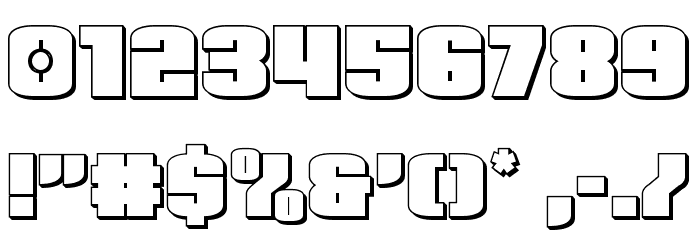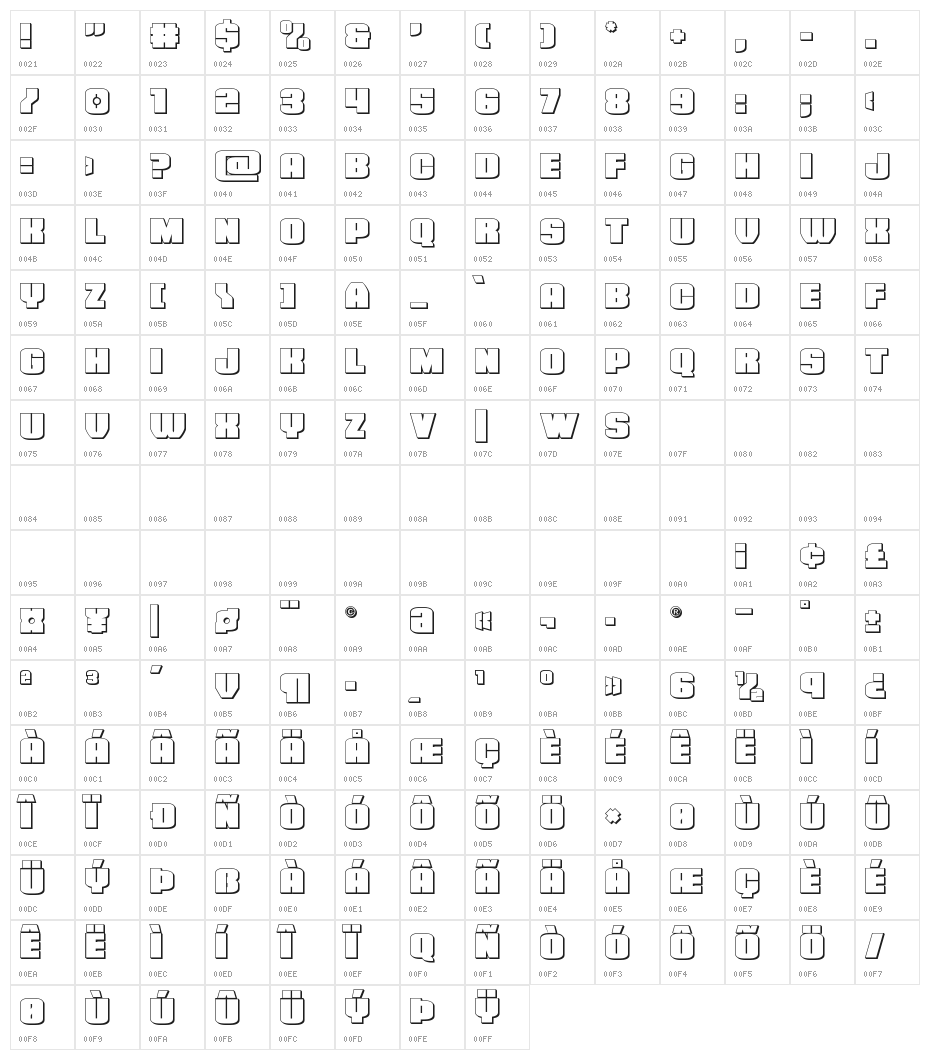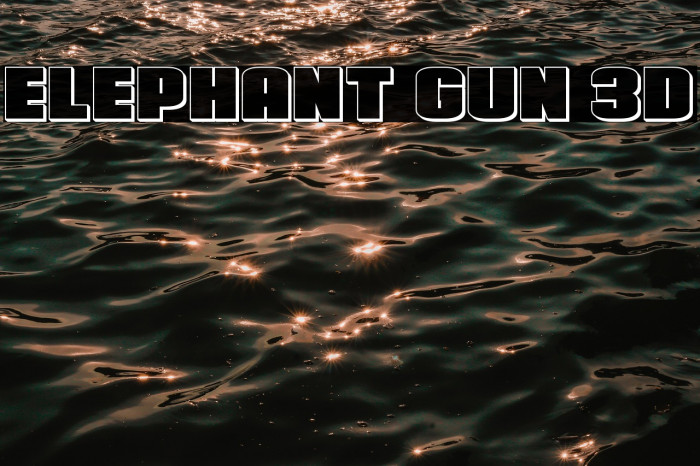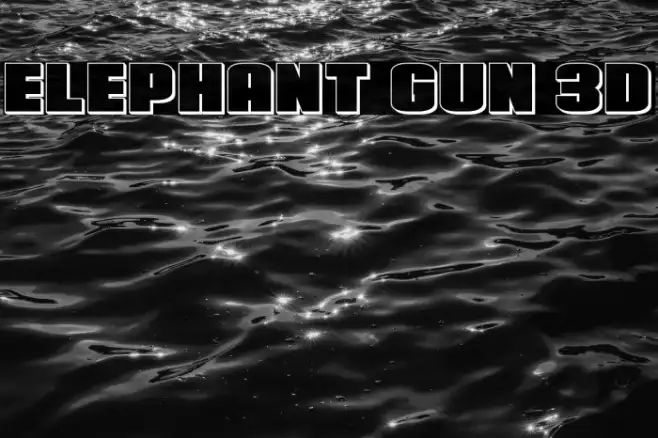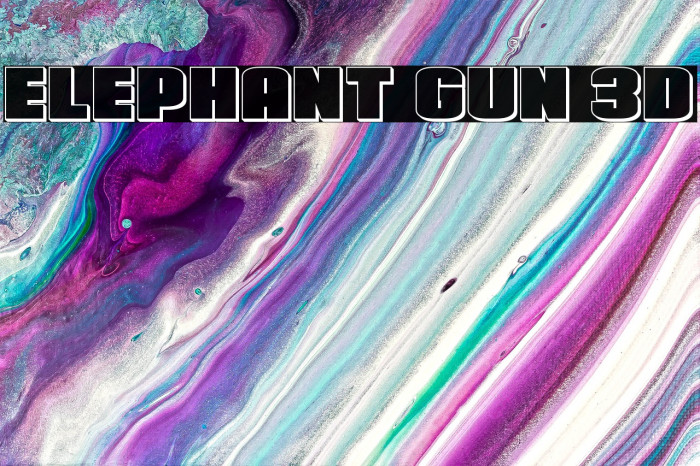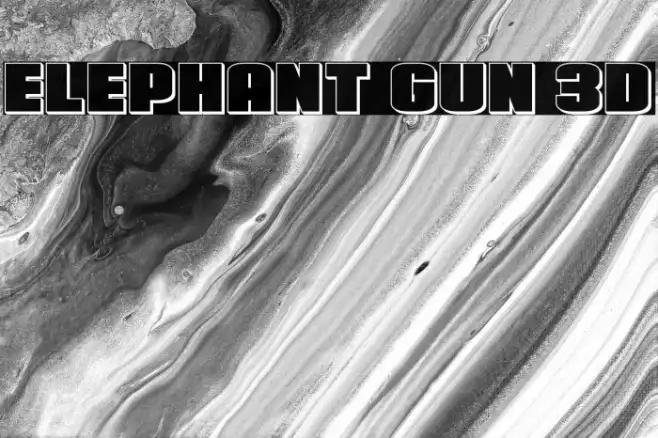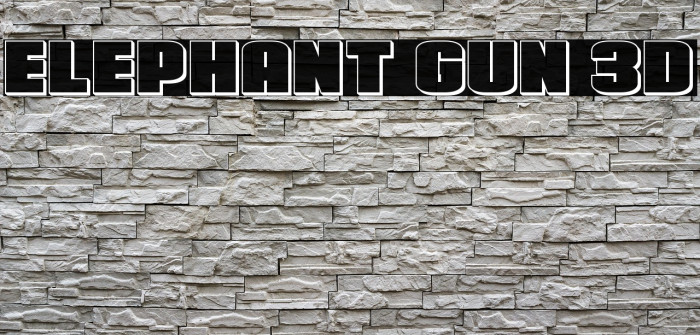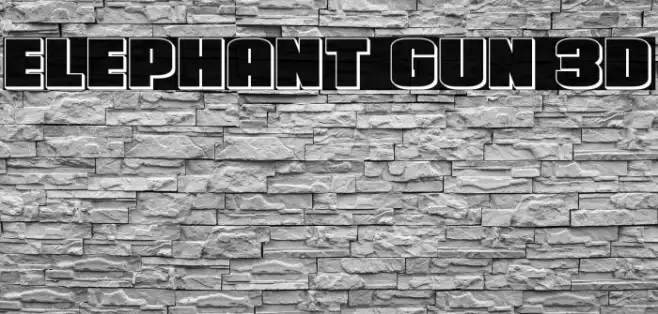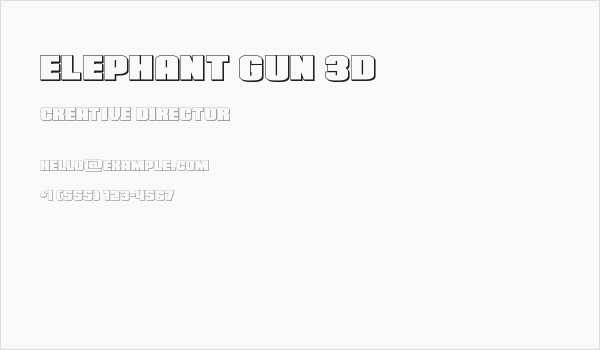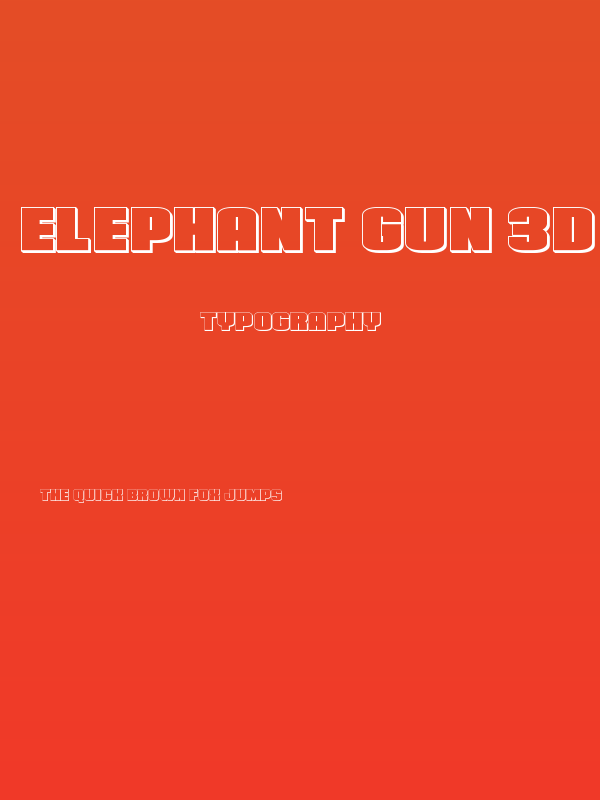
Elephant Gun 3D Font
Elephant Gun 3D Description
This bold and impactful font features a three-dimensional effect, giving each character a sense of depth and presence. The letters are capitalized and have a strong, blocky appearance, making them stand out prominently. The design includes a subtle shadow effect that enhances the 3D illusion, adding a dynamic and modern touch. The font is well-suited for attention-grabbing headlines and titles, where a bold statement is needed. Its geometric structure and clean lines contribute to a contemporary and stylish look, ideal for projects that require a strong visual impact.
| Proposed Projects | Ideal for posters, logos, video game titles, and any design requiring a bold, modern statement. |